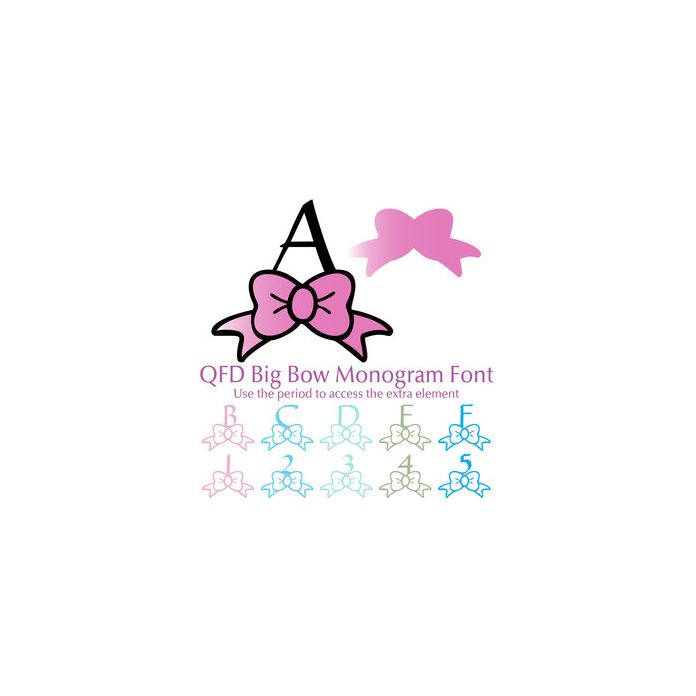
Perfect for cards, wall art, t-shirts, mugs and anything else you can think of. Use the period to access the extra element. See our detailed monograms tutorial by clicking the Instructions button.